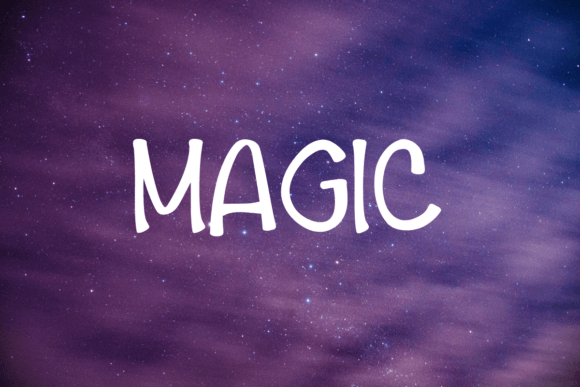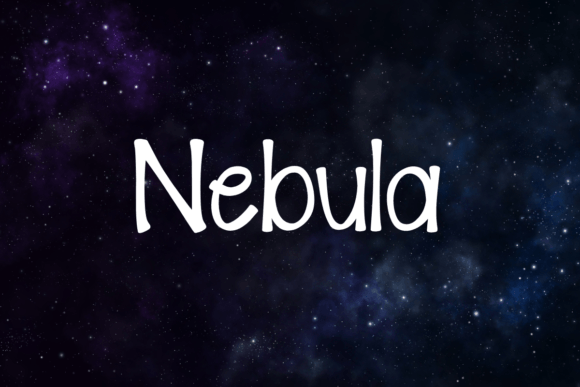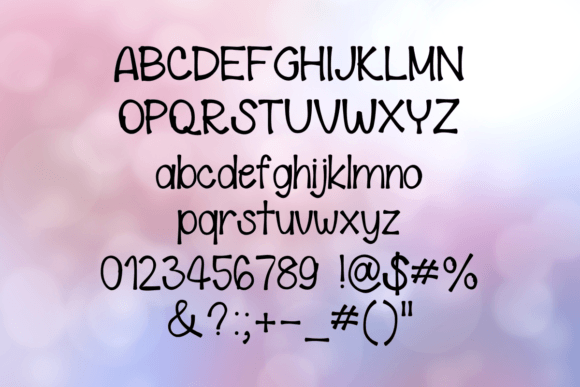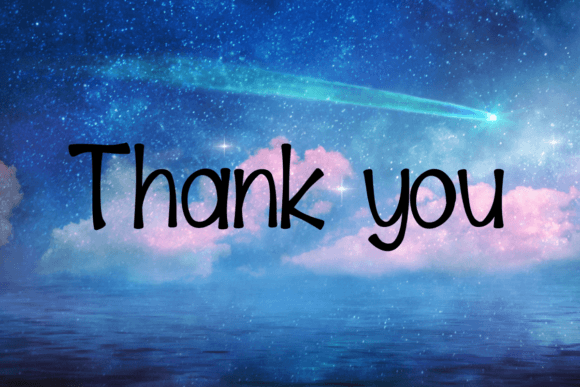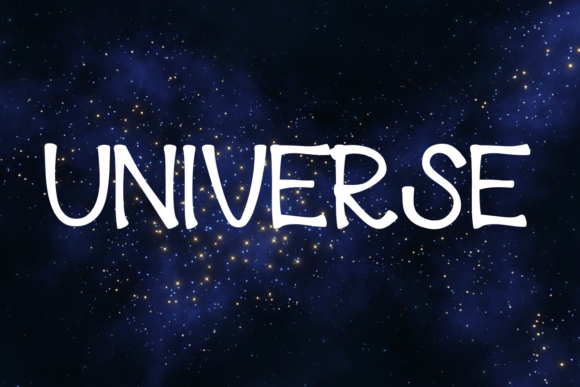
Sensation Font
About Sensation Font
Sensation is not just a font; it’s a stylish handwritten creation that brings a touch of magic to your projects. Crafted with a keen sense of style, this font is designed to infuse a lively and enchanting atmosphere into your creative endeavors.
The magic of Sensation lies not only in its letterforms but also in the overall ambiance it creates. The stylish and handwritten quality of the font adds a personal and unique touch to your projects, making them stand out with an air of sophistication.
Sensation is a versatile typeface that can enhance a variety of design projects. Its magic atmosphere makes it suitable for anything from elegant invitations and greeting cards to posters, social media graphics, and more. The font’s ability to bring a sense of life and enchantment makes it a valuable asset for designers looking to add a touch of magic to their creations.
The handwritten charm of Sensation extends seamlessly to both digital and print applications. Whether you’re designing for online platforms or creating tangible materials, Sensation maintains its magical allure, creating an immersive and captivating experience for your audience.
In essence, Sensation is a design element that goes beyond being just a font. It’s a tool that transforms your projects into something more, infusing them with a magical atmosphere that captivates and enchants. With Sensation, every creation becomes a magical journey, making your designs more lively and, indeed, more magical.